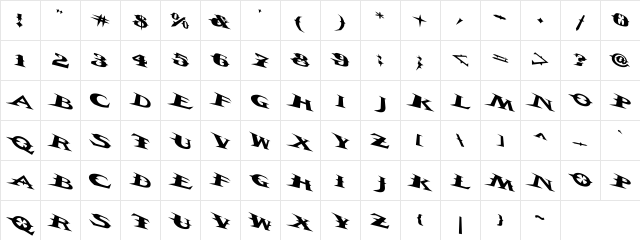
VTCBelialsBladeTricked Regular
Designer: WolfBainX
Design Context for VTCBelialsBladeTricked
VTCBelialsBladeTricked is a composed and adaptable typeface that performs quietly and consistently across a wide range of design contexts.